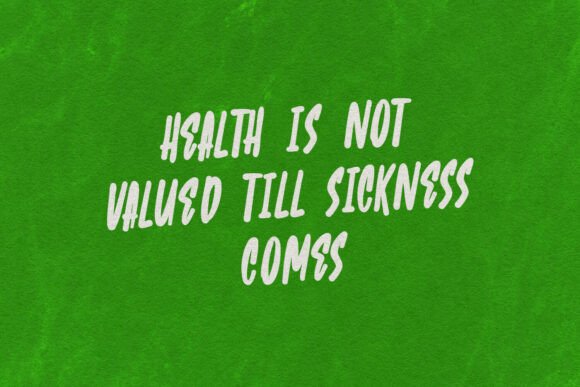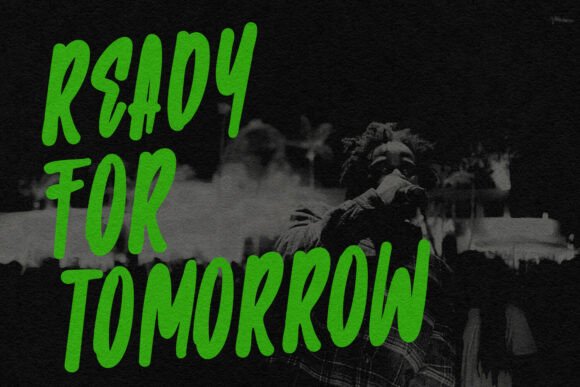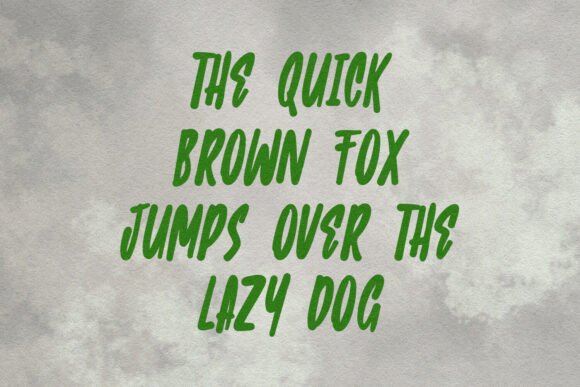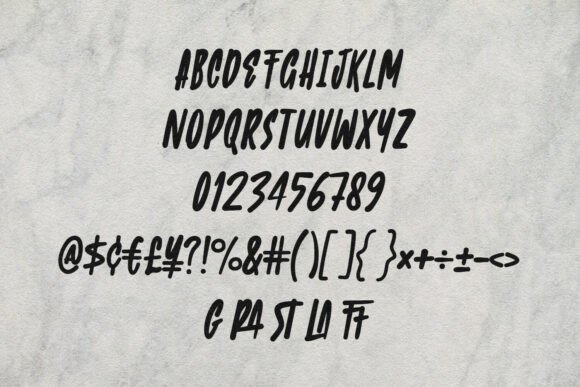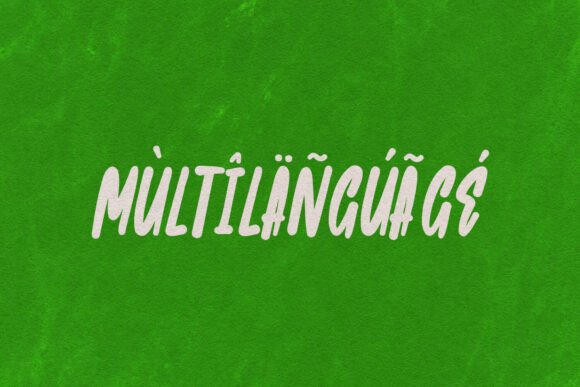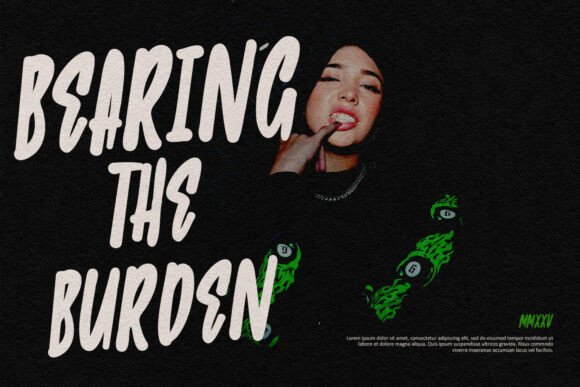
Unleash Your Creativity with Caraso Font: The Ultimate Display Font for Bold Designs
Are you looking for a font that can add a dash of attitude, confidence, and personality to your creative projects? Look no further than Caraso Font, a bold and energetic display font designed to make your text stand out. With its hand-brushed strokes, dynamic flow, and modern street-style character, Caraso is the perfect choice for designers and crafters who want to create eye-catching headlines, posters, branding, apparel, music covers, and social media graphics.
The Unique Design of Caraso Font
Caraso Font boasts a unique design that blends urban vibes with artistic flair. Its hand-brushed strokes give it a raw, edgy feel that’s perfect for creating bold statements. The font’s dynamic flow and modern street-style character make it ideal for designs that require a youthful and energetic vibe. Whether you’re creating a motivational quote, album cover, sports branding, or promotional campaign, Caraso Font delivers power and creativity in every letter.
Caraso Font is a versatile font that can be used for a wide range of design projects. Its bold and energetic personality makes it perfect for:
- Headlines and titles that require a bold statement
- Posters and flyers that need to grab attention
- Branding and logos that require a unique and memorable design
- Apparel and merchandise that need a bold and eye-catching design
- Music covers and album art that require a creative and artistic vibe
- Social media graphics that need to stand out in a crowded feed
Multilingual Support and Ligatures
Caraso Font is designed to be versatile and accessible for global use. The font supports multilingual characters, numbers, punctuation, and special ligatures, making it perfect for designs that require a wide range of languages and characters. This feature ensures that your designs can reach a global audience, without compromising on style or creativity.
Why Choose Caraso Font?
So why choose Caraso Font for your design projects? Here are just a few reasons:
- Unique and creative design: Caraso Font boasts a unique and creative design that’s sure to make your text stand out.
- Bold and energetic personality: The font’s bold and energetic personality makes it perfect for designs that require attitude and confidence.
- Multilingual support: Caraso Font supports multilingual characters, numbers, punctuation, and special ligatures, making it perfect for global use.
- Versatile and adaptable: The font can be used for a wide range of design projects, from headlines and posters to branding and social media graphics.
Tips for Using Caraso Font
Here are a few tips for using Caraso Font in your design projects:
- Use it for headlines and titles: Caraso Font is perfect for headlines and titles that require a bold statement.
- Experiment with colors and textures: The font’s hand-brushed strokes and dynamic flow make it perfect for experimenting with different colors and textures.
- Pair it with other fonts: Caraso Font can be paired with other fonts to create a unique and creative design.
- Use it for branding and logos: The font’s unique design and bold personality make it perfect for branding and logos that require a memorable design.
In conclusion, Caraso Font is a bold and energetic display font that’s perfect for designers and crafters who want to add attitude, confidence, and personality to their creative projects. With its unique design, multilingual support, and versatility, Caraso Font is the ultimate choice for designs that require a bold statement. Whether you’re creating a motivational quote, album cover, sports branding, or promotional campaign, Caraso Font delivers power and creativity in every letter.